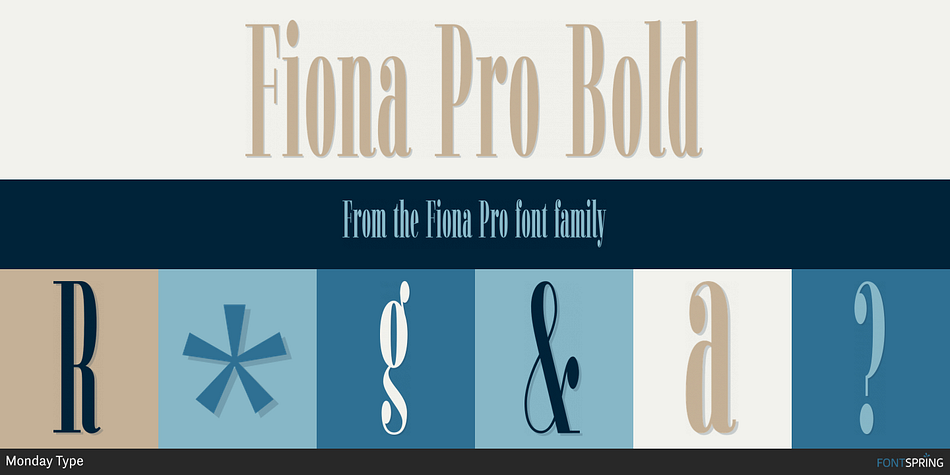
Fiona Pro Bold
Fiona Pro is a display serif font family. This typeface has twenty-one styles and was published by Monday Type.
Fiona Pro is the Extra Condensed answer to the beautiful didones of this world with a modern twist.
It is made for brave designers who are not afraid to design big attention grabbing designs, whether it be on screen or in print.
The recognition value of Fiona Pro is its biggest asset in world of uniformity.
Fiona Pro’s strong contrast is an homage to the great times of graphic design and makes it so elegant.
Fiona Pro doesn’t only work great in lifestyle and fashion related contexts but will also look amazing for restaurants, coffee shops or and other use cases that ask for character and identity.
Equipped with an italic version as well as a back slanted version for every style there is nothing you can’t design with this beauty.